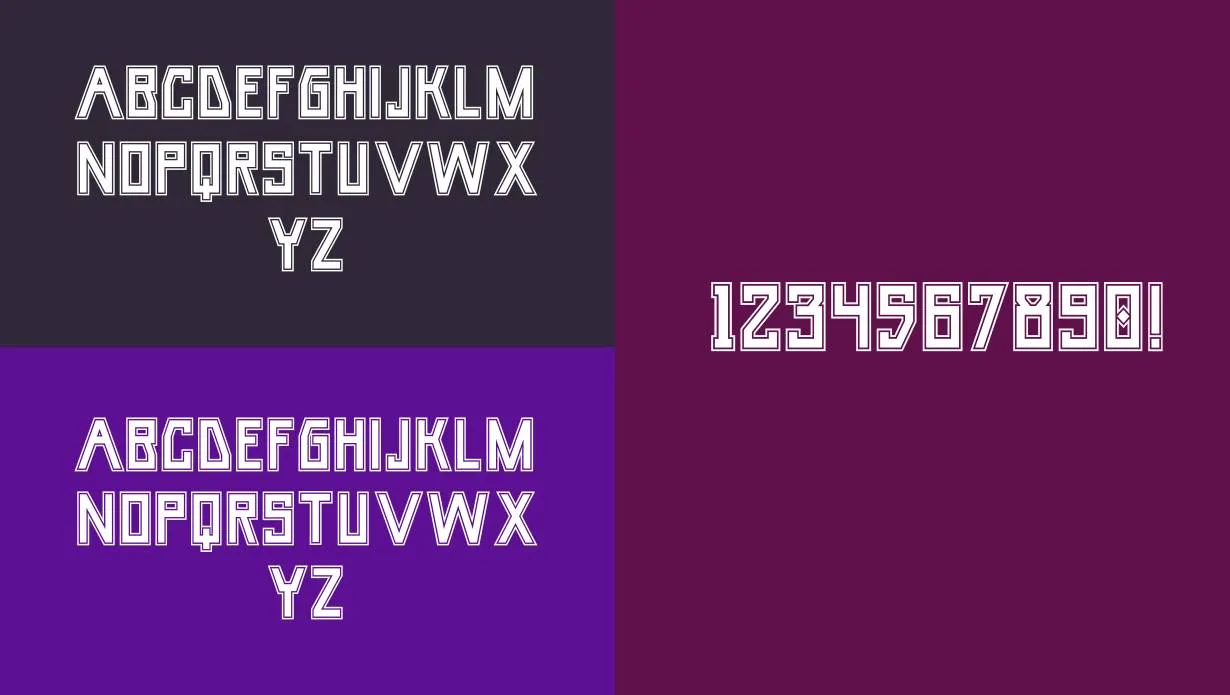
The Umar Font offers a versatile range of styles, allowing for diversity within a single typeface. In Adobe Photoshop, this font family accommodates various design needs, from formal to casual, providing options for different projects.
With CSS, it presents a spectrum of typographic options, ideal for implementing diverse text styles in web elements. In Canva, the Umar Font Family is a boon for creating a broad array of visuals, from elegant to playful designs, offering a flexible toolkit for designers to explore multiple styles under one font family.
| Name | Umar Font |
| Designer | Mikrojihad |